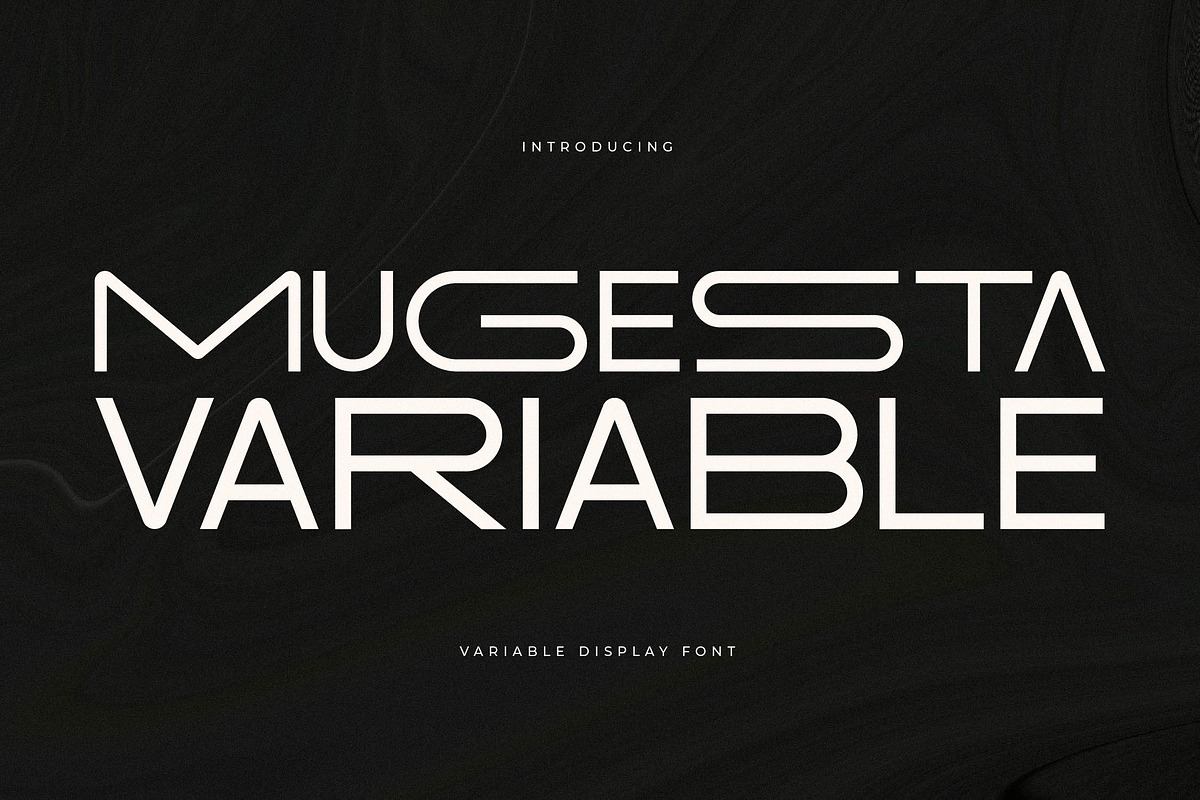
Mugesta Variable Display Font Free Download is a modern, versatile display font designed to make a bold statement. With its unique, variable design, Mugesta adjusts in weight and style, allowing you to create dynamic and adaptable typography for various projects. This font is perfect for headlines, branding, posters, logos, and any design that requires a strong, stylish presence.
Using the Mugesta Variable Display Font Free Download adds flexibility and creativity to your typography. Whether you're working on a digital campaign, designing an impactful logo, or creating a headline that stands out, this font allows you to play with its multiple variations to match the perfect style for your design.